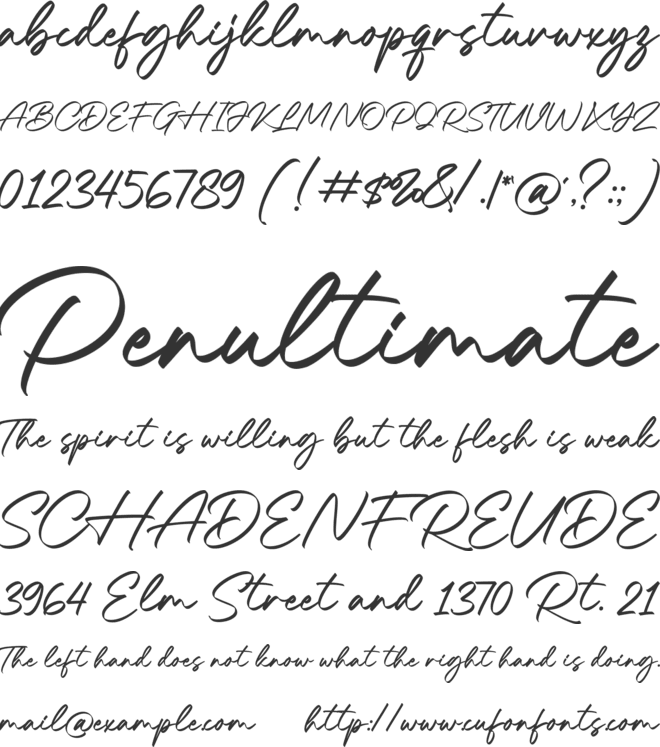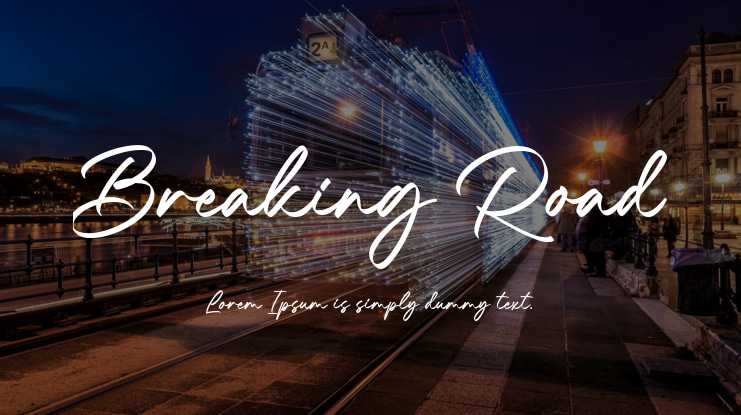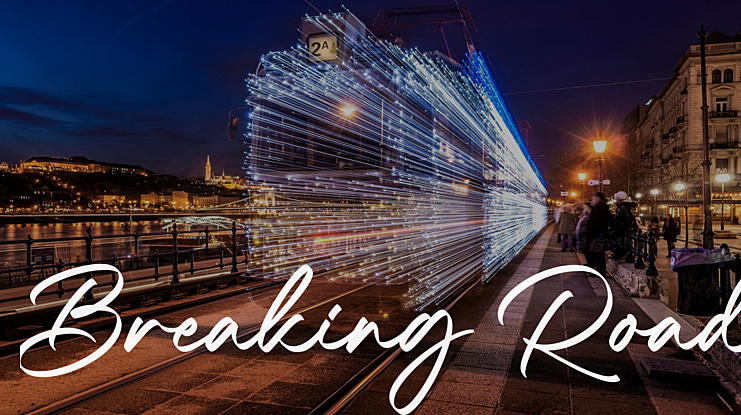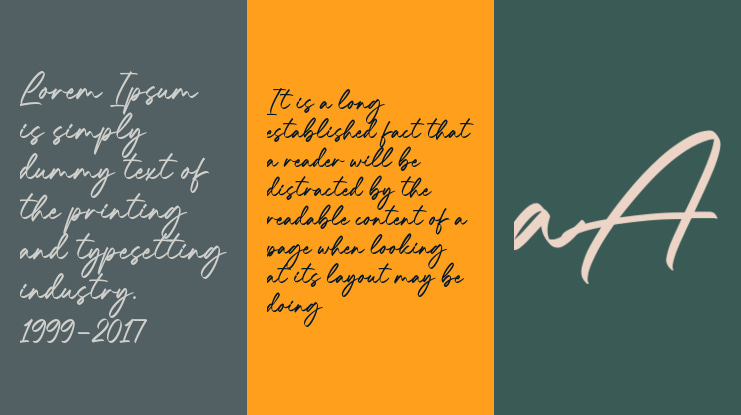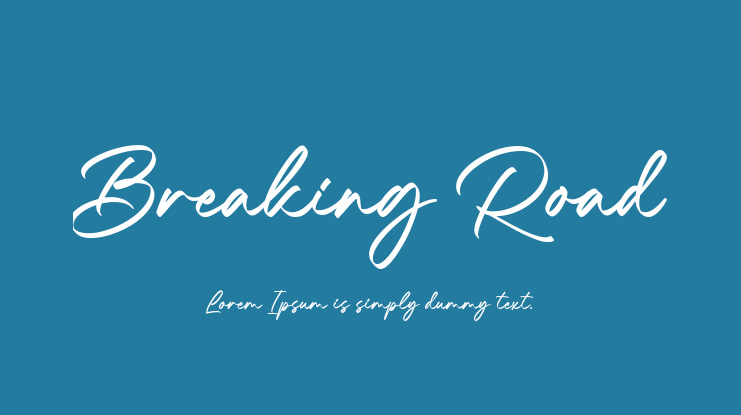
Breaking Road Font
Breaking Road is a Modern handwritten script font with casual and organic look, thick uneven strokes that vary in width.
Perfect for wedding invitations, greeting cards, and posters to add a sense of informality and warmth. Also can be used in branding and marketing materials to give a brand a more approachable, friendly feel.